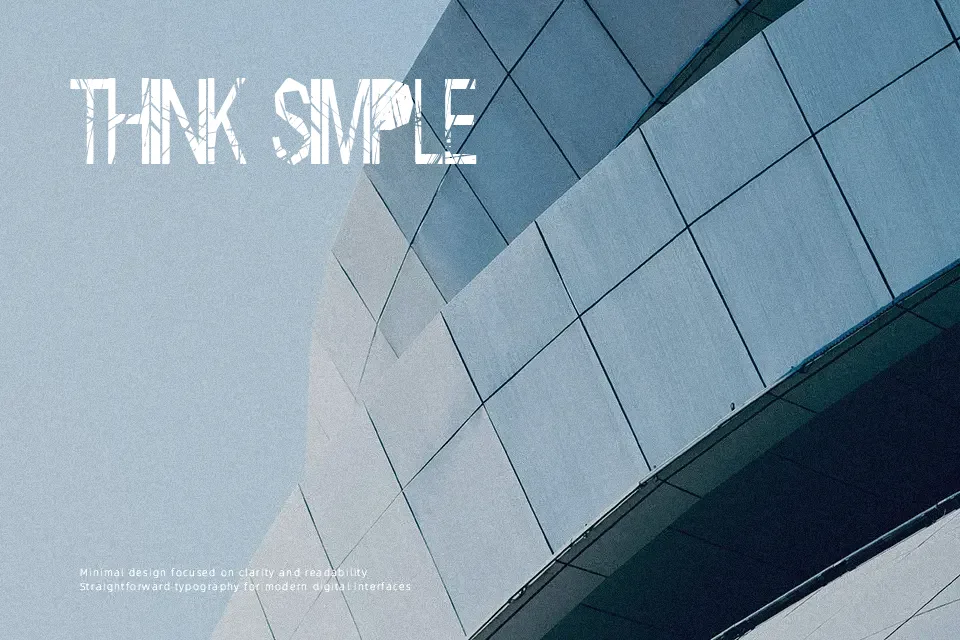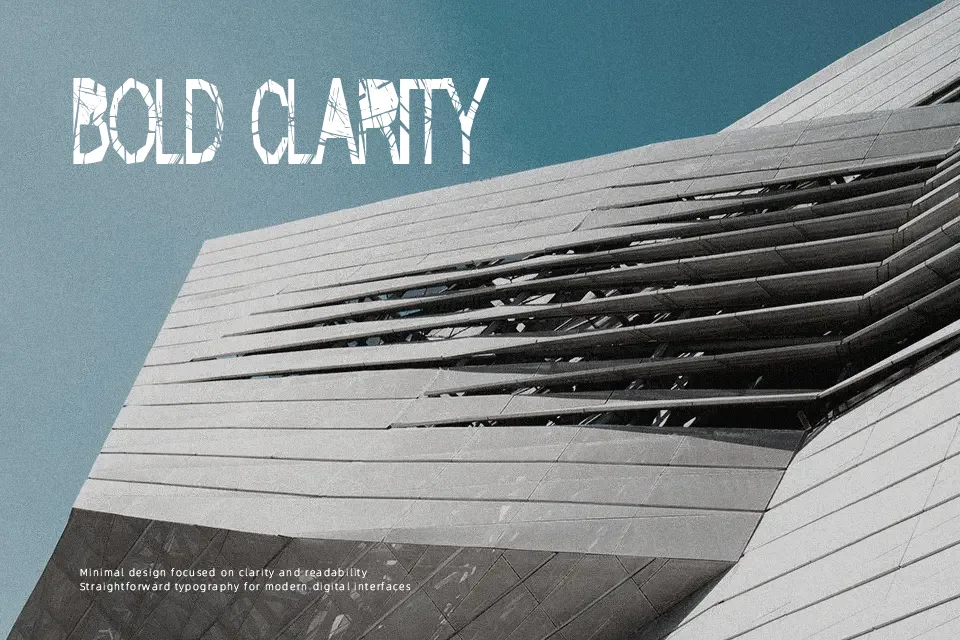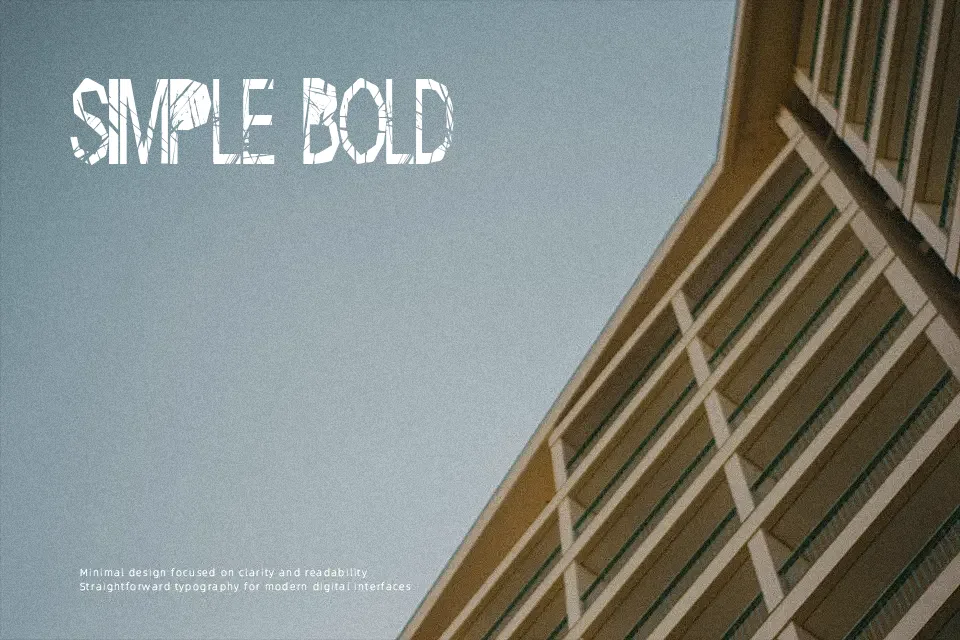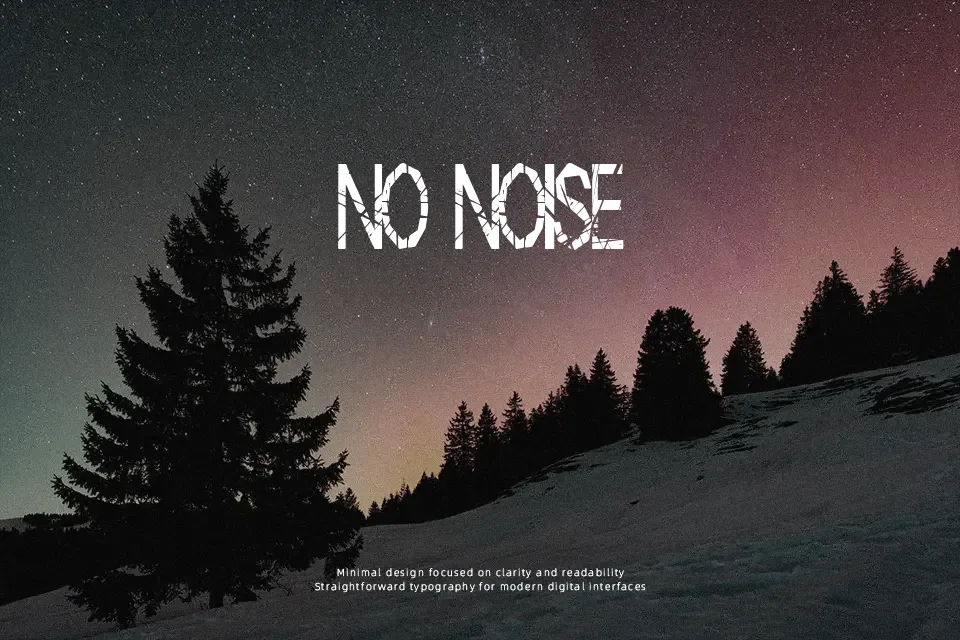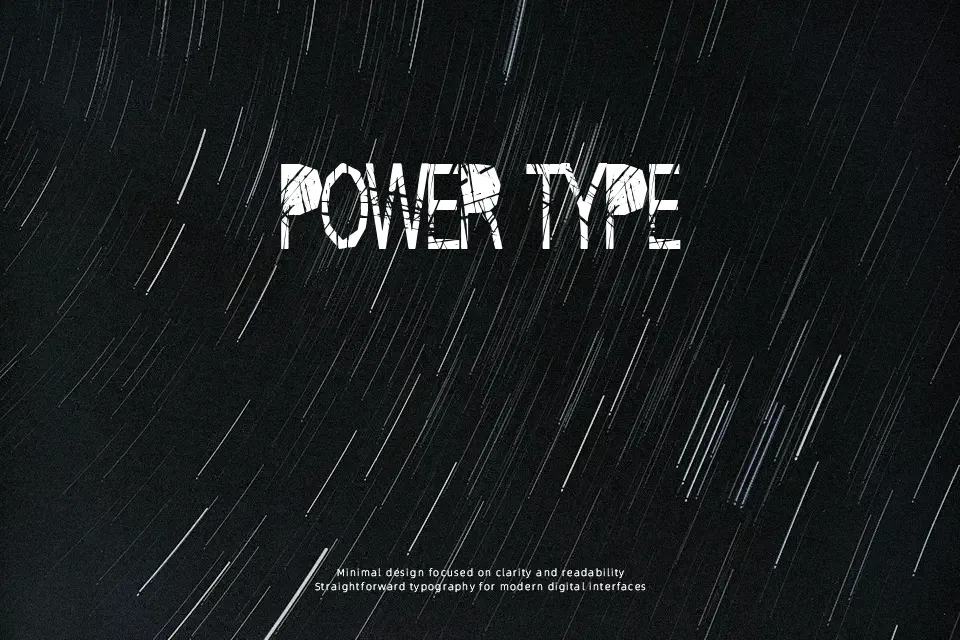
Skratch Font
Designed by Hanoded
Skratch Font immediately stands out with its aggressive, scratch-textured strokes and raw hand-rendered letterforms. The irregular contours and varied line density give each character a spontaneous, distressed energy suited for high-impact display environments. Moderate letter spacing ensures that individual glyphs remain distinct in short phrases, though the erratic edge detailing creates visual friction across denser arrangements. The typeface performs best when displayed at larger sizes across album covers, horror gaming banners, and punk flyers where tactile grit is required. However, the heavy surface noise makes it unsuitable for continuous paragraph text or tiny captions, where fine scratch marks quickly obscure core letter recognition.
Best For: punk concert posters, horror game titles, streetwear apparel graphics, heavy metal album covers
Not Ideal For: body text in books, small user interface labels, dense magazine articles, financial data sheets
Perfect for advertising, headline, and music, with a dramatic and decorative style.